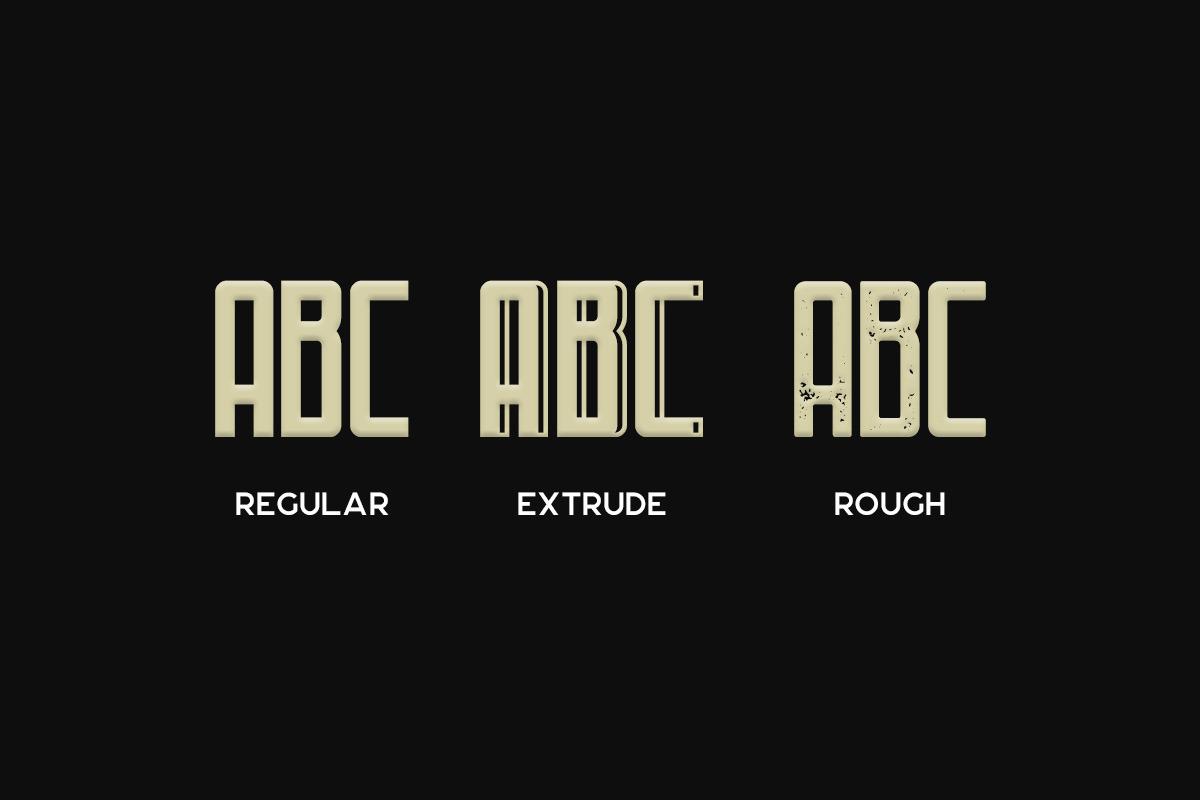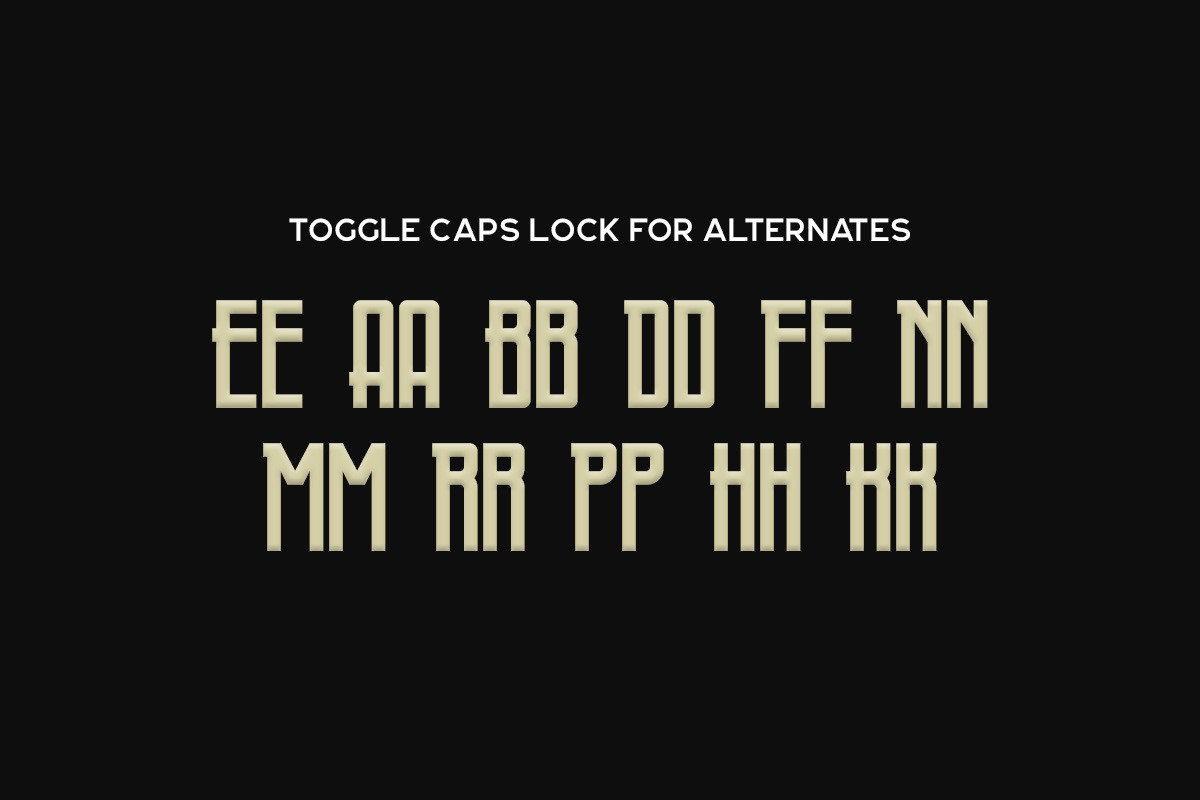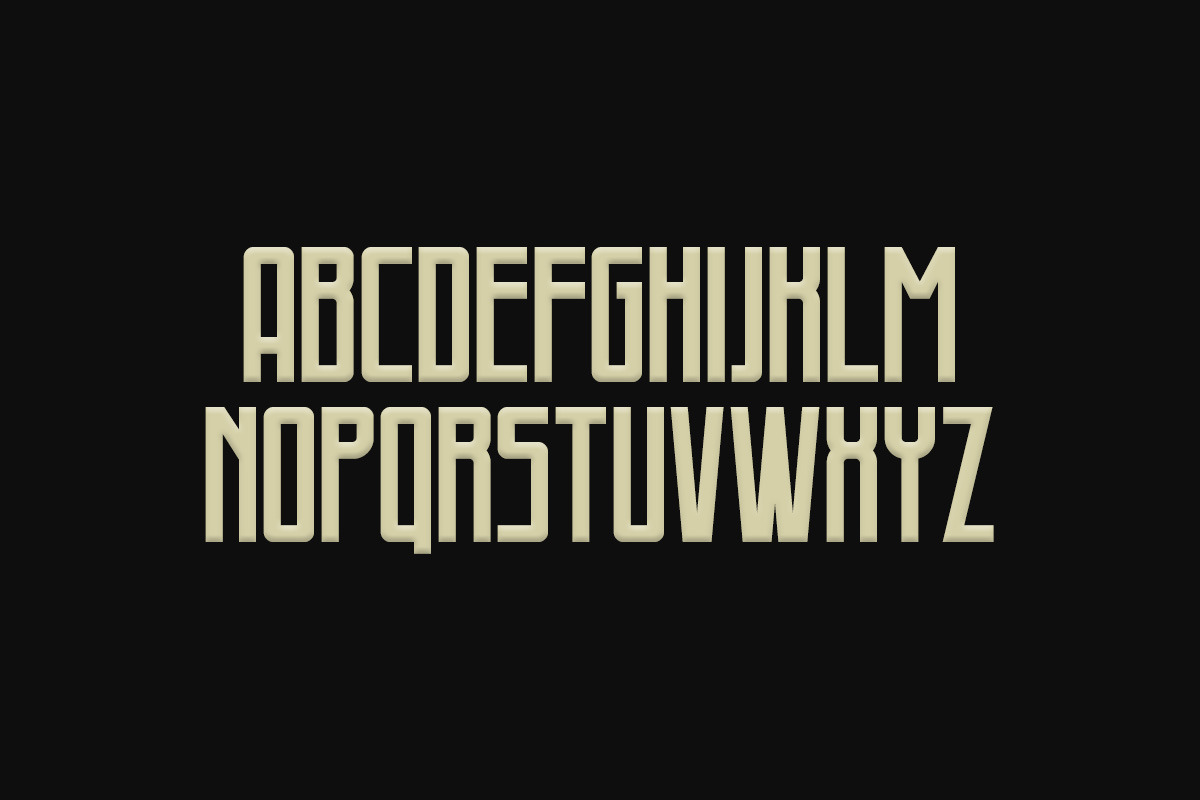
Fontaine Typeface
Fontaine Typeface by Tugcu Design Co. is a font selected for branding, posters, packaging, typography.
- It includes uppercase letters, numerals and some punctuation.
- Some letters contain alternate styles, which you can use by toggling caps lock.
Why Fontaine Typeface is worth a look
Fontaine Typeface by Tugcu Design Co. fits naturally into Branding, posters, packaging, typography.